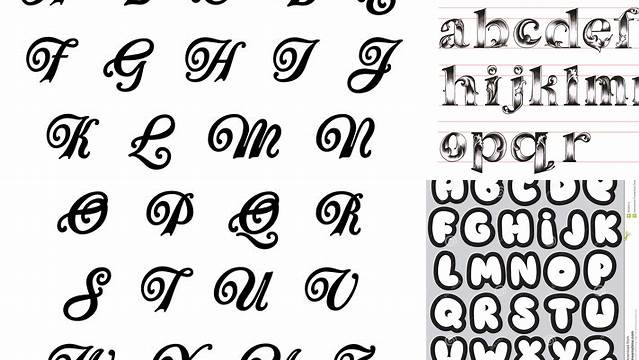
Font Alphabet Guide: Exploring Different Types
Diving into the World of Font Alphabets
Hey guys! Ever wondered about the fascinating world of fonts and how each one brings its unique flavor to the alphabet? Well, let's dive right in! Fonts are more than just letters; they're a powerful tool for communication, setting the tone and mood of any written piece. Think about it β the font you choose for a birthday invitation will likely be very different from the one you'd use for a formal business report, right? Understanding the different kinds of fonts alphabet and their characteristics can significantly enhance your designs and overall communication. From the elegant curves of calligraphy to the straightforward lines of sans-serif fonts, the options are seemingly endless. Fonts can evoke feelings of nostalgia, modernity, playfulness, or sophistication. They can make your text appear authoritative, friendly, or even whimsical. The key is to select a font that perfectly aligns with your message and audience. So, whether you're a seasoned designer or just starting to explore the world of typography, understanding the nuances of font alphabets is a crucial skill. Let's embark on this journey together and unravel the secrets behind these incredible visual tools. We'll explore the various categories, the common characteristics, and even some tips on how to choose the right font for your project. Get ready to unleash your inner font enthusiast!
Serif Fonts: The Classic Choice
Letβs kick things off with serif fonts, which are like the grand old masters of the typography world. What exactly is a serif, you ask? Well, those are the little decorative strokes that you see at the end of the letters' main strokes β think of them as the fancy feet on your letters! Serif fonts have a long and storied history, dating back to the early days of printing. They're often associated with tradition, authority, and elegance, making them a go-to choice for formal documents, books, and newspapers. Think about the fonts you typically see in novels or classic literature β chances are, they're serifs! The presence of serifs aids readability, especially in large blocks of text, as they help guide the reader's eye along the lines. Some of the most popular serif fonts include Times New Roman, Garamond, and Georgia. Times New Roman, with its clean and classic appearance, is a workhorse for academic papers and professional documents. Garamond exudes a sense of sophistication and is often used in books and magazines. Georgia, designed specifically for screen readability, is a great choice for websites and digital content. But serif fonts aren't just about tradition; they can also bring a touch of warmth and personality to your designs. A well-chosen serif font can elevate your brand identity, add a sense of credibility to your marketing materials, or simply make your website more inviting. The key is to consider the overall tone and message you want to convey. Do you want to project an image of trustworthiness and professionalism? A classic serif font might be the perfect choice. Are you aiming for a more refined and elegant aesthetic? Explore options like Baskerville or Caslon. Serif fonts are incredibly versatile, and understanding their nuances can significantly enhance your design projects.
Sans-Serif Fonts: The Modern Minimalists
Now, let's shift our focus to sans-serif fonts, the sleek and modern cousins of serif fonts. The name "sans-serif" literally means "without serif," so these fonts lack those little decorative strokes we talked about earlier. This gives them a clean, minimalist appearance that's often associated with modernity, simplicity, and efficiency. Sans-serif fonts really gained prominence in the 20th century with the rise of modern design movements. Their clean lines and straightforward forms made them ideal for advertising, signage, and corporate branding. Think about the logos of many tech companies β you'll often see sans-serif fonts in play! One of the primary advantages of sans-serif fonts is their excellent readability on screens. The absence of serifs makes them appear crisp and clear, even at smaller sizes. This makes them a popular choice for websites, mobile apps, and other digital interfaces. Some of the most popular sans-serif fonts include Helvetica, Arial, and Open Sans. Helvetica, a true classic, is known for its neutrality and versatility. It's often used in corporate branding and signage due to its clean and legible appearance. Arial, a widely used font on computers, is another solid choice for both print and digital projects. Open Sans, designed with screen readability in mind, is a popular choice for websites and web applications. But sans-serif fonts aren't just about functionality; they can also convey a sense of personality and style. A bold sans-serif font can make a strong statement, while a lighter weight can create a more delicate and airy feel. The key is to choose a font that aligns with your brand identity and design aesthetic. Are you aiming for a modern and tech-savvy look? A sans-serif font is a natural fit. Do you want to create a sense of clarity and efficiency? A well-chosen sans-serif font can help you achieve that. Sans-serif fonts are incredibly versatile and understanding their characteristics can greatly enhance your design capabilities.
Script Fonts: Adding a Touch of Elegance
Let's talk about script fonts, the elegant and flowing members of the font family. These fonts mimic the look of handwriting, adding a personal and sophisticated touch to any design. Script fonts come in a wide variety of styles, from formal calligraphy to casual brushstrokes, each with its own unique character. They're often used for invitations, greeting cards, logos, and other designs where a touch of elegance and personality is desired. Think about the fonts you see on wedding invitations or high-end product packaging β chances are, you're looking at a script font! One of the key characteristics of script fonts is their connecting strokes, which create a sense of flow and continuity. This gives them a more organic and handwritten feel compared to serif and sans-serif fonts. However, it's important to use script fonts sparingly, as they can be difficult to read in large blocks of text. Some of the most popular script fonts include Brush Script, Pacifico, and Lobster. Brush Script, with its casual and energetic strokes, is a popular choice for headings and logos. Pacifico, inspired by the mid-20th century American surf culture, brings a retro and friendly vibe. Lobster, a bold and condensed script font, is often used for headlines and signage. But script fonts aren't just about formality; they can also convey a sense of playfulness and creativity. A whimsical script font can add a touch of charm to your designs, while a more elegant script can create a sense of sophistication. The key is to choose a font that matches the overall tone and message of your project. Are you designing an invitation for a special event? A script font can add a touch of elegance and personalization. Are you creating a logo for a creative business? A script font can help you convey a sense of originality and flair. Script fonts are a powerful tool for adding personality to your designs, but it's important to use them wisely and ensure readability.
Display Fonts: The Showstoppers
Now, let's move on to display fonts, the bold and expressive personalities of the font world! These fonts are designed to grab attention and make a statement, making them perfect for headlines, posters, logos, and other large-format applications. Display fonts come in a vast array of styles, from vintage and retro to futuristic and geometric, offering endless possibilities for creative expression. Think about the fonts you see on movie posters or in magazine advertisements β often, those are display fonts at work! One of the key characteristics of display fonts is their uniqueness and individuality. They often feature distinctive shapes, unusual proportions, or eye-catching details that set them apart from more traditional fonts. Because of their strong personality, display fonts are typically used sparingly and are best paired with simpler body text fonts for optimal readability. Some popular display fonts include Bebas Neue, a clean and modern sans-serif; Playfair Display, an elegant serif with high contrast; and Impact, a bold and impactful sans-serif. Bebas Neue is a versatile choice for headlines and posters, while Playfair Display adds a touch of sophistication to headings and titles. Impact is a classic choice for making a strong statement in a short amount of space. But display fonts aren't just about aesthetics; they also play a crucial role in branding and visual communication. A well-chosen display font can help a brand stand out from the competition, convey its unique personality, and create a memorable visual identity. The key is to choose a font that aligns with your brand values and target audience. Are you designing a poster for a music festival? A bold and edgy display font can capture the energy and excitement of the event. Are you creating a logo for a luxury brand? An elegant and sophisticated display font can convey a sense of exclusivity and quality. Display fonts are a powerful tool for making a visual impact, but it's important to use them strategically and ensure they complement your overall design.
Monospace Fonts: The Uniform Spacers
Let's explore monospace fonts, the unique members of the font family where each character occupies the same amount of horizontal space. This characteristic gives them a distinctive, typewriter-like appearance that's often associated with coding, technical documentation, and retro designs. Monospace fonts might not be the flashiest or most versatile fonts, but they serve a specific purpose and have a unique charm. Think about the fonts you see in code editors or on old typewriters β those are likely monospace fonts! The uniformity of character widths makes monospace fonts ideal for situations where alignment is critical. This is why they're commonly used in coding, where proper indentation and spacing are essential for readability and functionality. They also lend a certain retro aesthetic to designs, evoking a sense of nostalgia for typewriters and early computing. Some popular monospace fonts include Courier New, Consolas, and Monaco. Courier New is a classic monospace font that's widely used in screenplays and legal documents. Consolas, designed specifically for programming environments, offers excellent readability and clarity. Monaco, a popular font on macOS, is known for its clean and minimalist appearance. But monospace fonts aren't just about functionality; they can also be used creatively in design projects. They can add a touch of retro charm to posters, flyers, and websites, or create a sense of technical precision in infographics and presentations. The key is to use them intentionally and in situations where their unique characteristics are an asset. Are you designing a website for a software company? A monospace font can subtly convey a sense of technical expertise. Are you creating a poster with a vintage theme? A monospace font can help you capture the retro aesthetic. Monospace fonts are a niche but valuable tool in the world of typography, offering a unique blend of functionality and style.
Choosing the Right Font: Tips and Tricks
Alright, guys, now that we've explored the different kinds of font alphabets, let's talk about how to choose the right font for your project. This is a crucial skill for designers, marketers, and anyone who wants to communicate effectively through visual means. Choosing the right font can make or break your design, so it's worth taking the time to consider your options carefully. The first step is to consider your message and your audience. What kind of tone do you want to convey? Are you aiming for formal and professional, or casual and playful? Who is your target audience, and what kind of fonts will resonate with them? Once you have a clear understanding of your goals, you can start exploring different font options. It's helpful to create a mood board or style guide to help you visualize your design and narrow down your choices. Don't be afraid to experiment with different fonts and combinations. Sometimes the most unexpected pairings can create the most striking results. But it's also important to avoid using too many fonts in a single design. A general rule of thumb is to stick to two or three fonts at most, as using too many can create a cluttered and confusing look. Another important factor to consider is readability. While a font might look beautiful, it's not effective if it's difficult to read. Pay attention to the font's kerning (the spacing between letters), tracking (the overall spacing of the characters), and leading (the spacing between lines of text). These factors can significantly impact readability, especially in large blocks of text. It's also a good idea to test your font choices on different devices and screen sizes to ensure they look good across all platforms. And finally, don't forget about licensing. Many fonts are free to use, but others require a commercial license. Make sure you have the appropriate license for any fonts you use in your projects. Choosing the right font can feel like a daunting task, but with a little practice and attention to detail, you can master this essential design skill. Remember to consider your message, your audience, and the overall aesthetic you want to achieve. And most importantly, have fun experimenting with different fonts and discovering your own unique style!
Conclusion: The Power of Typography
So, there you have it, guys! We've journeyed through the different kinds of fonts alphabet, exploring the unique characteristics of serif, sans-serif, script, display, and monospace fonts. We've also discussed some tips and tricks for choosing the right font for your project. Now, you might be wondering, why does all of this matter? Well, typography is more than just choosing pretty letters; it's a powerful tool for communication. The fonts you choose can influence how your message is perceived, evoke emotions, and shape your brand identity. Understanding the power of typography is essential for designers, marketers, and anyone who wants to communicate effectively in the visual world. Think about the brands you admire β their font choices are likely a key part of their visual identity. A classic serif font can convey a sense of tradition and trustworthiness, while a modern sans-serif font can project innovation and efficiency. A playful script font can add a touch of personality, while a bold display font can grab attention and make a statement. The possibilities are endless! But it's not just about aesthetics; typography also plays a crucial role in readability and accessibility. A well-chosen font can make your text easier to read, ensuring that your message is clear and accessible to a wider audience. This is especially important in digital design, where screen readability is paramount. So, whether you're designing a website, creating a marketing campaign, or simply writing an email, take the time to consider your font choices. Experiment with different kinds of fonts alphabet, explore different pairings, and find what works best for your project. With a little knowledge and creativity, you can harness the power of typography to communicate more effectively and create visually stunning designs. The world of fonts is vast and fascinating, and there's always more to learn. So, keep exploring, keep experimenting, and keep pushing the boundaries of typography! You've got this!